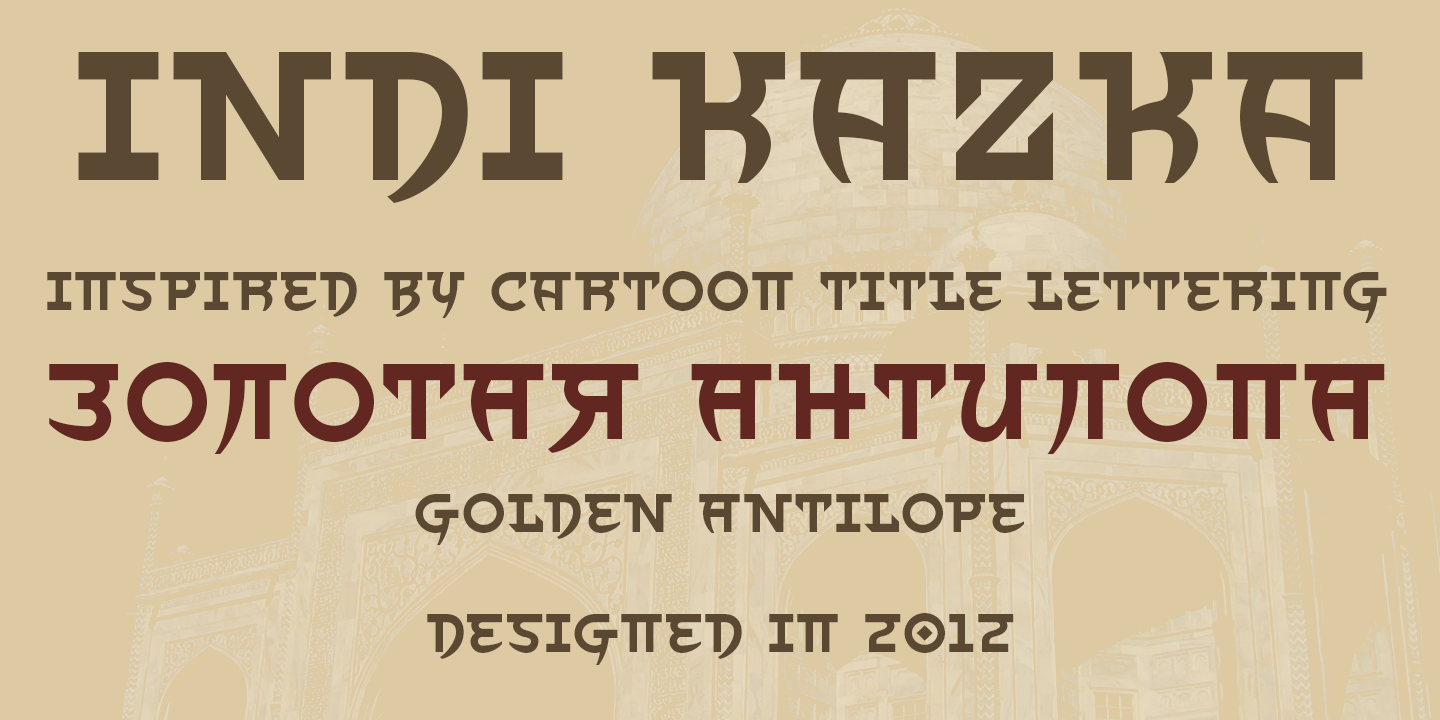
This artistic typeface is perfect for independent music labels, indie film productions, alternative art galleries, creative storytelling platforms, bohemian lifestyle brands, underground cultural venues, artisan craft markets, independent publishing houses, avant-garde fashion designers, experimental theater groups, creative workshop spaces, and authentic artistic communities. The font's unique design makes it ideal for projects that celebrate creative independence, artistic authenticity, and the bold spirit of creators who forge their own path with original vision and fearless expression.
Indi Kazka 4F Font is exciting because it embodies creative independence and artistic authenticity through its distinctive letterforms and indie-inspired character structure. The font's unconventional angles and artistic proportions create an atmosphere of originality, creative freedom, and authentic expression, making it perfect for brands that want to convey individuality, artistic integrity, and the captivating appeal of independent creative vision. Its artistic personality ensures instant recognition while maintaining excellent readability across various creative applications.
The Indi Kazka 4F Font family includes multiple creative variations: Light Expression, Regular Independent, Medium Artistic, Bold Creative, and Black Original weights, each available in standard and experimental versions. Special indie editions feature artistic alternates, creative ornaments, and independent symbols that enhance the font's authentic appeal, providing designers with comprehensive tools for creating genuine indie-focused communications.
Express creative independence with Indi Kazka 4F Font Free Download – a typeface that represents artistic authenticity and independent vision. Whether you're developing indie brand identity, creative project materials, or alternative culture campaigns, this font delivers the authentic presence and creative individuality your projects need while ensuring exceptional performance and artistic impact across all independent and creative applications.